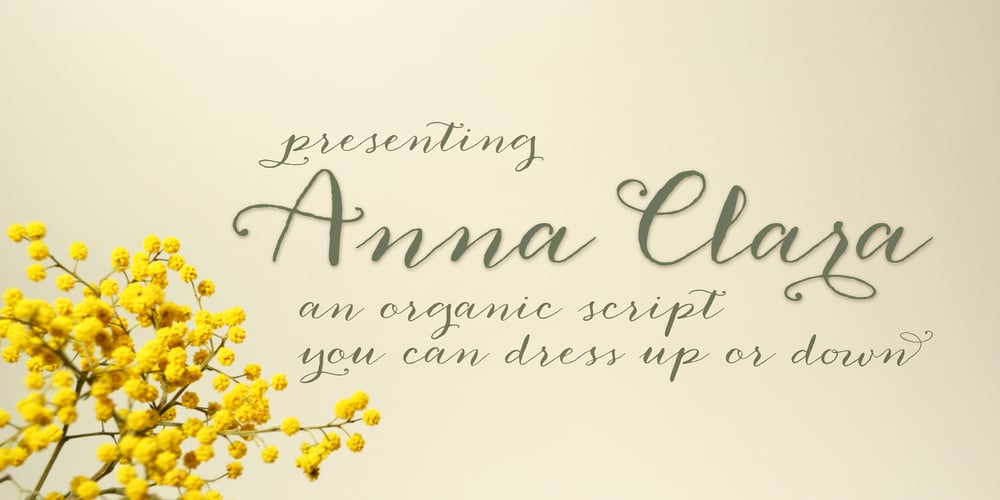
Anna Clara Font Family was designed by Laura Condouris and published by Trial by Cupcakes. Anna Clara contains 1 styles and family package options. Anna Clara can be dressed up or down, as fancy as you wanna be. On its own, it’s an organic script, with the fine hairlines, thick swells, and slightly undulating baseline found in modern casual calligraphy. Add swashes, and Anna Clara becomes a bit more playful and festive. Each capital letter has a flourished alternate—great for displays or headings, or to add emphasis to a particular section of text. For OpenType-aware software users, Anna Clara also features ten pairs of swashes that can be added to the beginning or end of any lowercase letter, for a custom flourished look. Illustrator and InDesign users can access extra swashes and banners by using the glyph panel. Photoshop users: These characters can be accessed via the “Ornaments” feature in your OpenType panel – try non-numeric punctuation marks and accents for swashes. For banners, type catchwords followed by an asterisk. “Asterisk asterisk” will produce a blank banner that you can use to create your own. Included catchwords are “and”, “at”, “by”, “for”, “from”, “of”, “the”, “to”, “with”, “l'”, “le”, “la”, “el”, “et”, and “y”. Roman numerals can be used in the “Ornaments” feature by typing their respective keyboard characters “I”, “II”, “III”, etc. – followed by an asterisk. An ampersand (&) followed by one or two asterisks produces two special “and” characters.